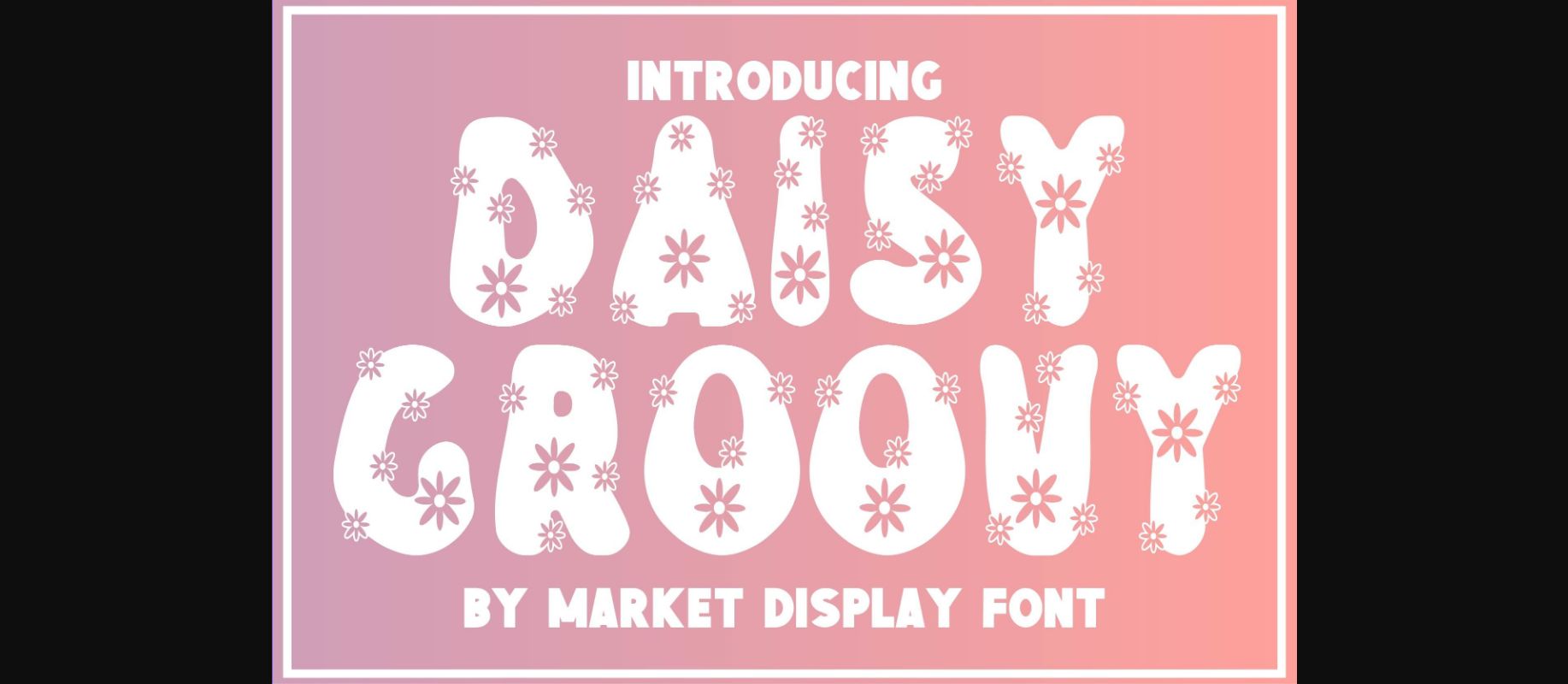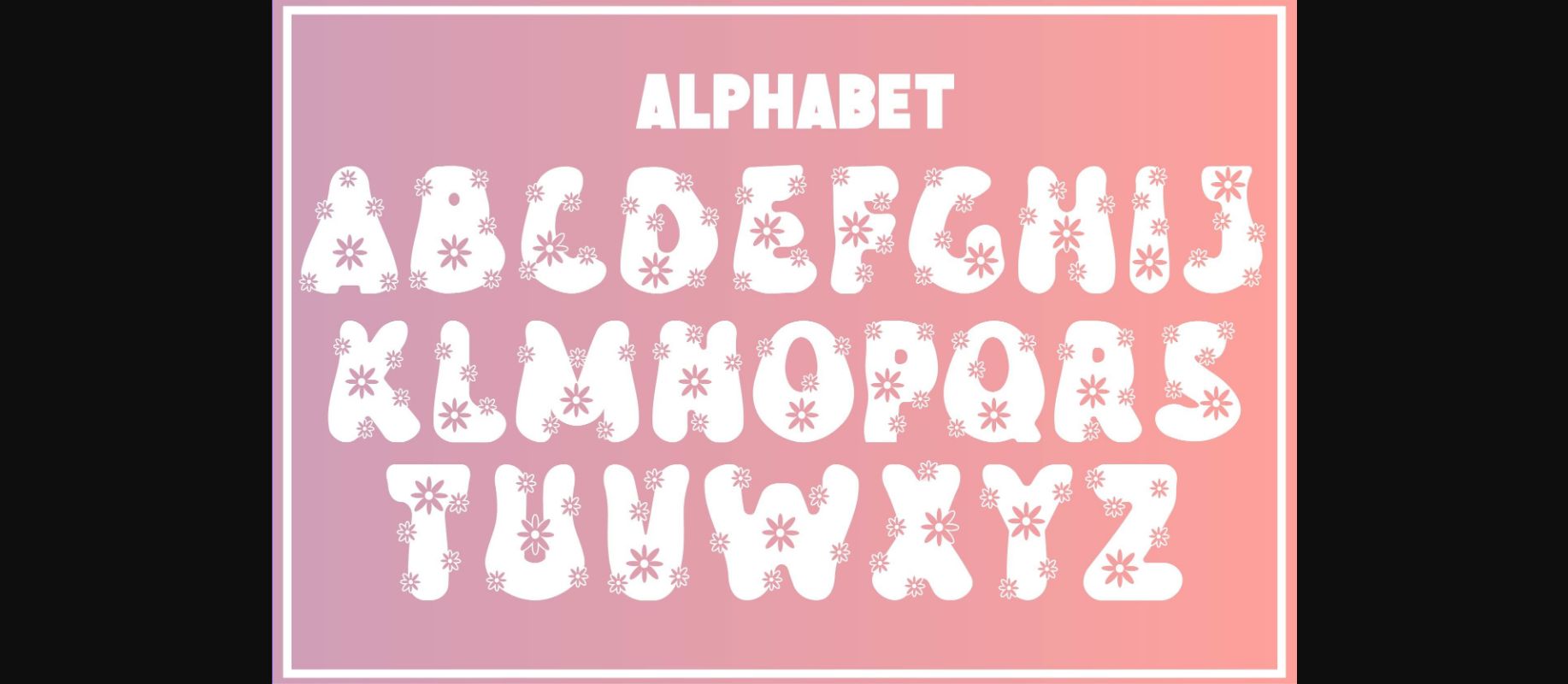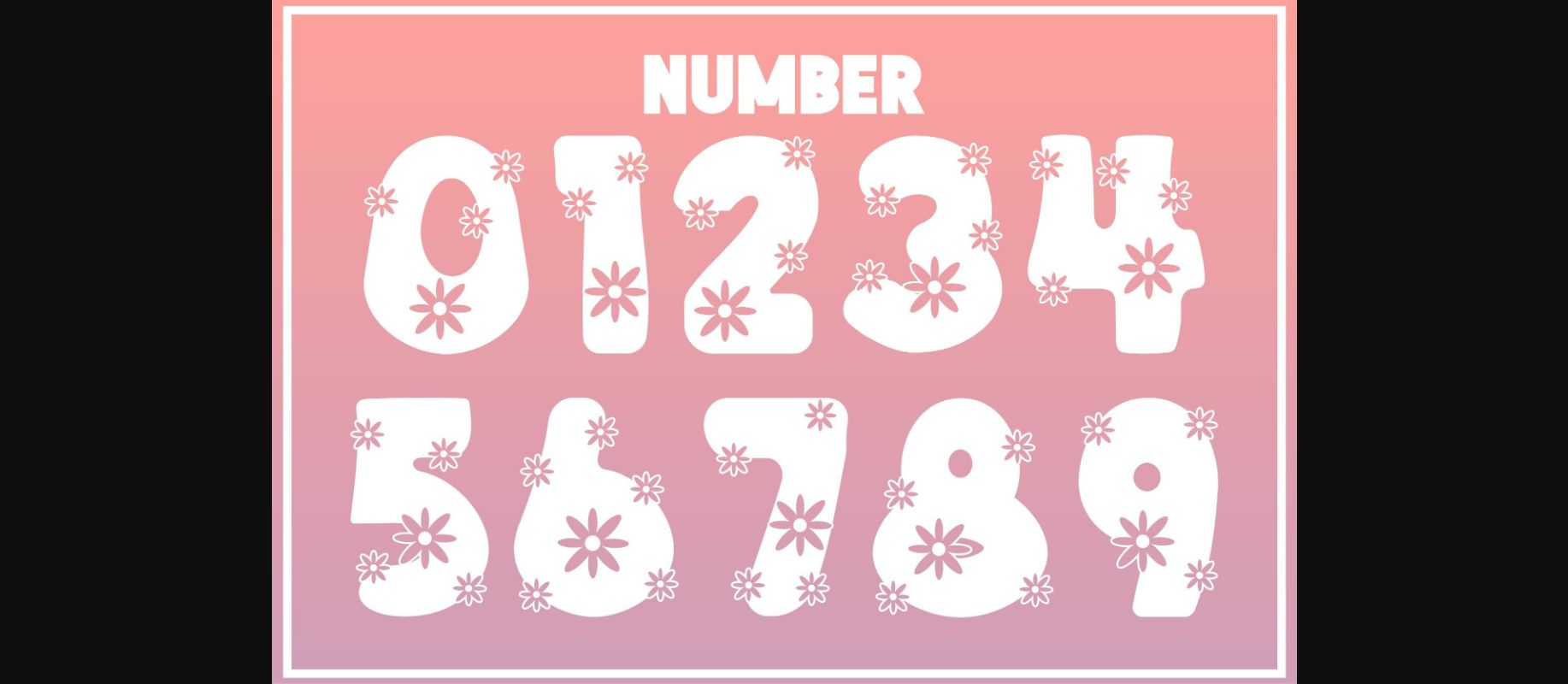
HomeDecorative FontsDaisy Groovy Font Decorative Fonts Daisy Groovy Font FacebookXPinterestWhatsApp 1 of 5 ... Daisy Groovy Font Poster 2... Daisy Groovy Font Poster 3... Daisy Groovy Font Poster 4... Daisy Groovy Font Poster 5... About Daisy Groovy Font Daisy Groovy is a lovely decorative font. This font is the perfect fit for all of your logos, branding, social media, crafty DIY projects, and much more! DOWNLOAD NOW People also explored Gallery Font Written Lies Font Grilled Cheese BTN Split Font Kasih Putih Font Tyre Grunge Sweet Honey Font Ratih Hyun Font Wobbly Gothic Font 324 0 TagsDaisy Groovy Font Previous articleEagle FontNext articleFantasy Font LEAVE A REPLY Cancel reply Comment: Please enter your comment! Name:* Please enter your name here Email:* You have entered an incorrect email address! Please enter your email address here Website: Save my name, email, and website in this browser for the next time I comment. Personal Use Free Aline Personal Use Free Read more about this font Fifty Five Personal Use Free Read more about this font Wildwest Personal Use Free Read more about this font Super Bubbly Font Personal Use Free Read more about this font BLOG Fonts That Capture the Spirit of New York City New York City is more than just a place—it’s an experience, a rhythm, a visual language... 5 Fonts That Will Dominate Design Trends in 2026 Top 7 Google Fonts Alternatives for Faster and Privacy-Friendly Web Design (2025) How to Install and Use Fonts on Windows, macOS, and Web Projects